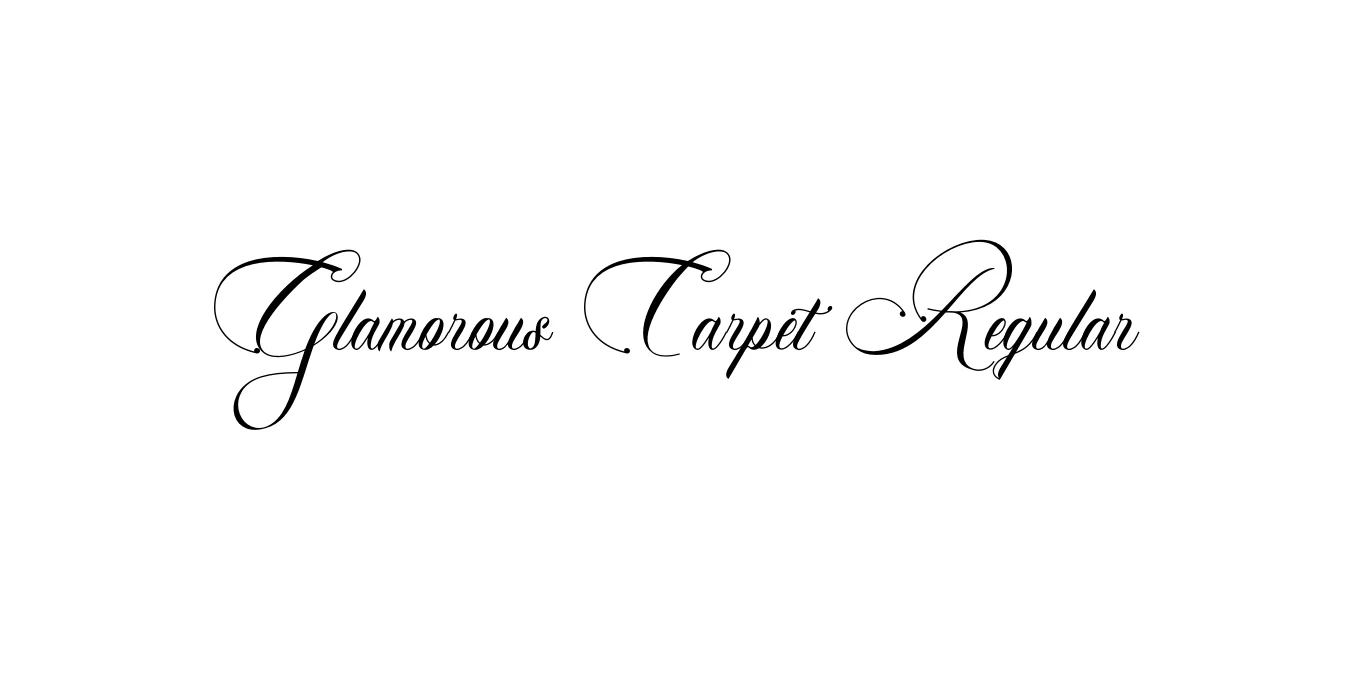
Glamorous Carpet Regular
Glamorous Carpet Regular is a sophisticated script typeface that embodies elegance and high-end fashion. Designed with a fluid, handwritten motion, it features sweeping strokes and delicate flourishes that give every character a sense of movement and prestige. This font is particularly effective for projects that aim to convey a sense of luxury, craftsmanship, and artistic flair, making it a favorite among designers working in the premium lifestyle sector.
The technical structure of the font allows for seamless connectivity between glyphs, ensuring that text looks like authentic calligraphy rather than a digital imitation. Whether used for monograms, editorial headlines, or luxury branding, Glamorous Carpet Regular provides a timeless aesthetic that bridges the gap between classic penmanship and modern graphic design. Its high contrast and rhythmic spacing make it highly legible even in decorative contexts.
Glamorous Carpet Regular Best Uses
Perfect for creating romantic and high-end invitations or save-the-date cards.
Ideal for fashion houses, beauty salons, and boutique lifestyle brands.
Great for large headlines in magazines and stylish digital lookbooks.
Excellent for quote graphics and aesthetic Instagram branding.